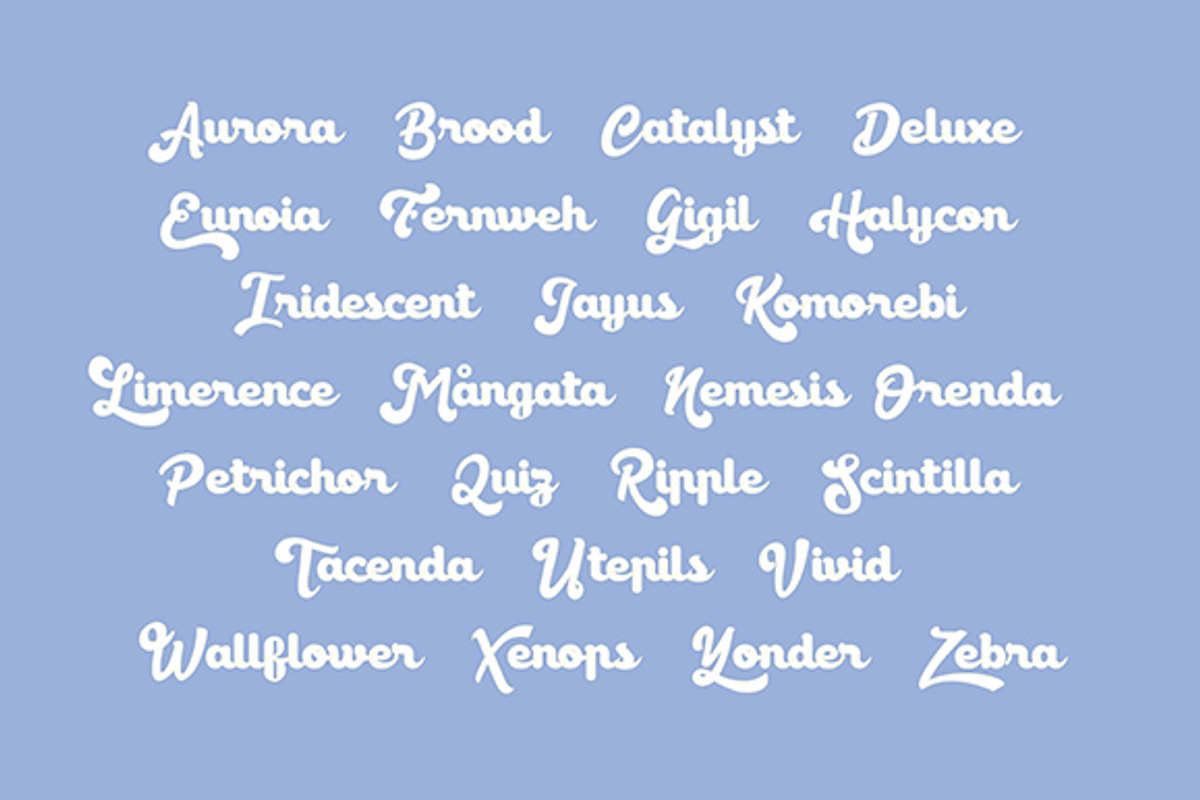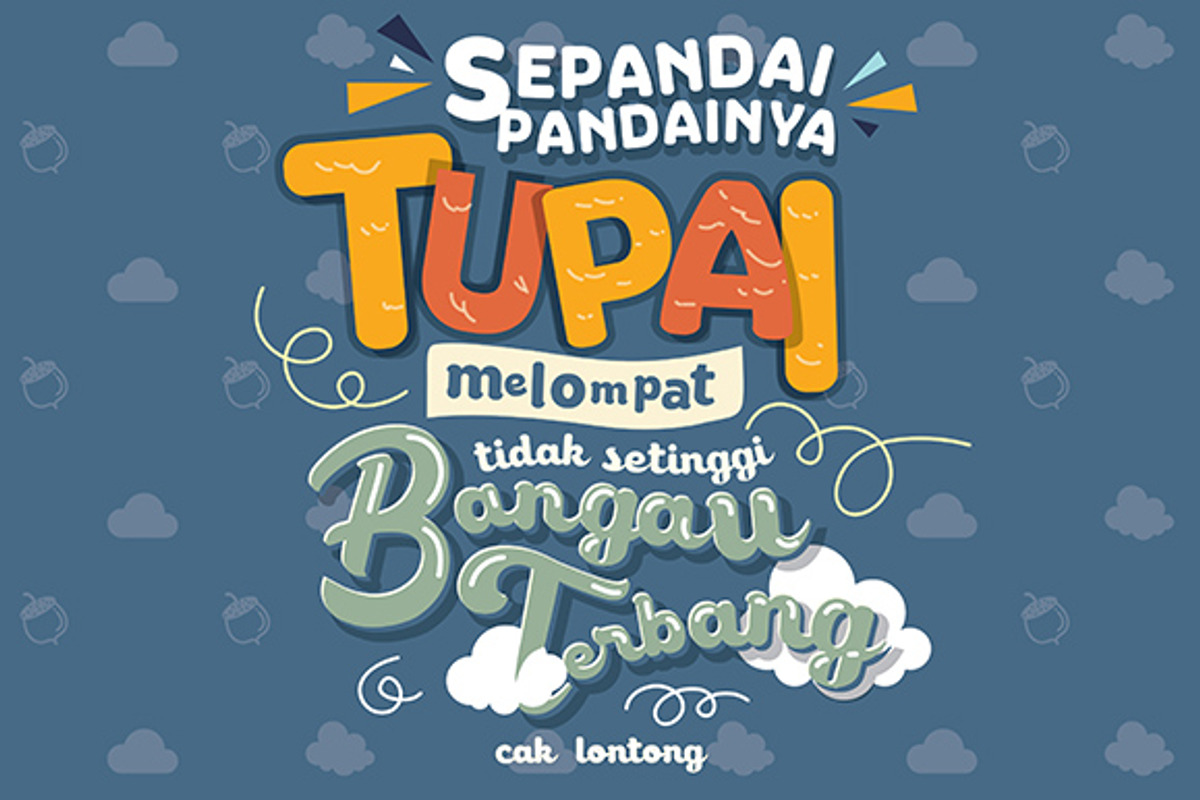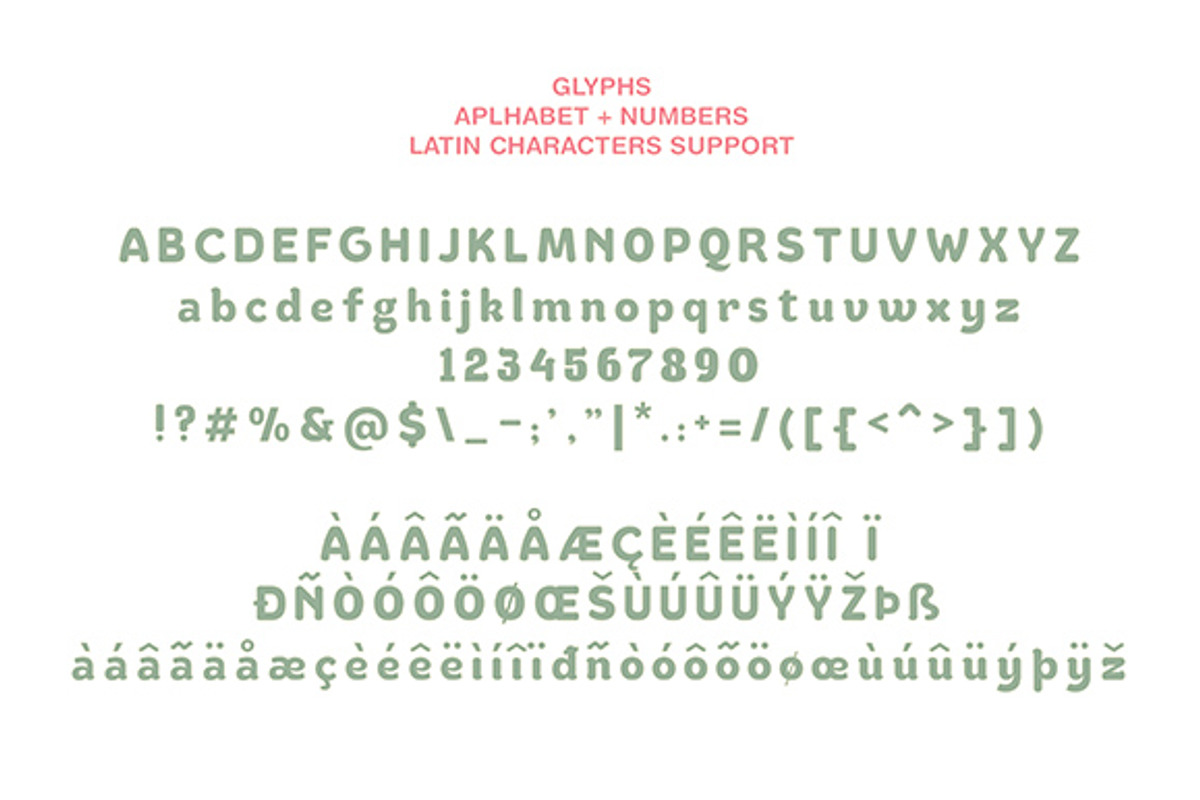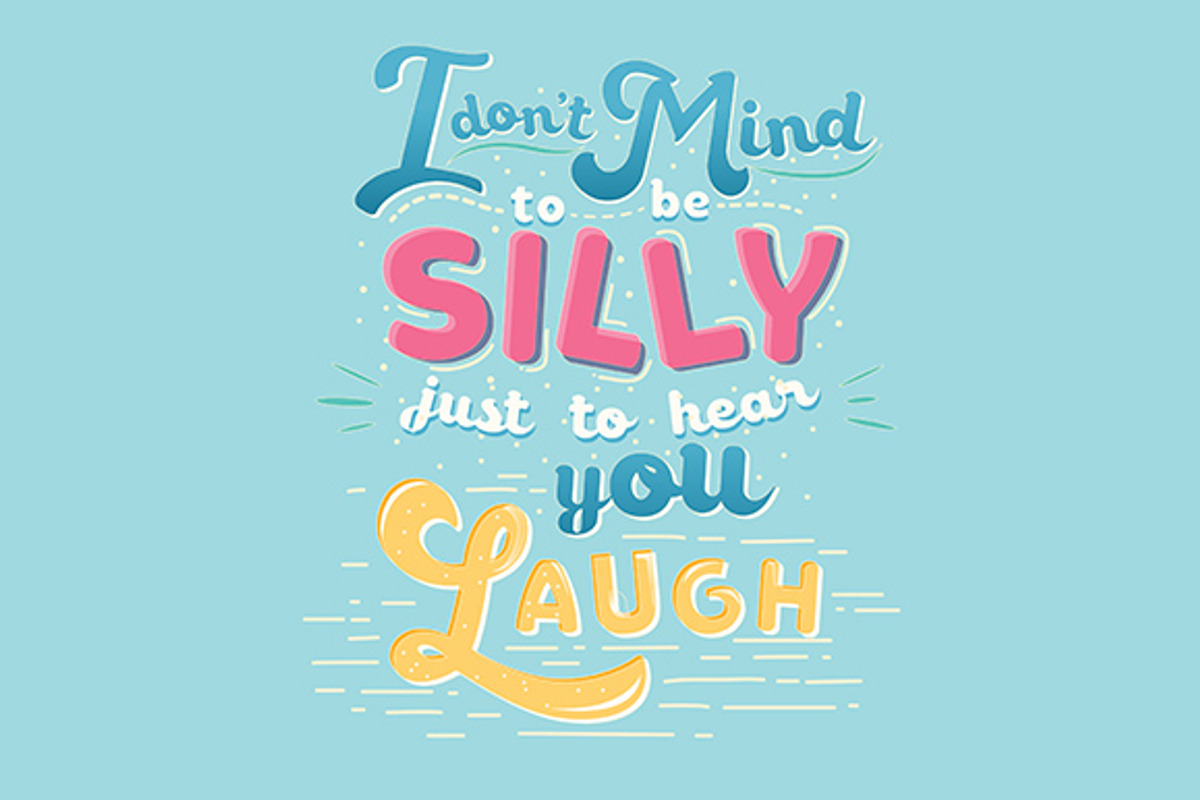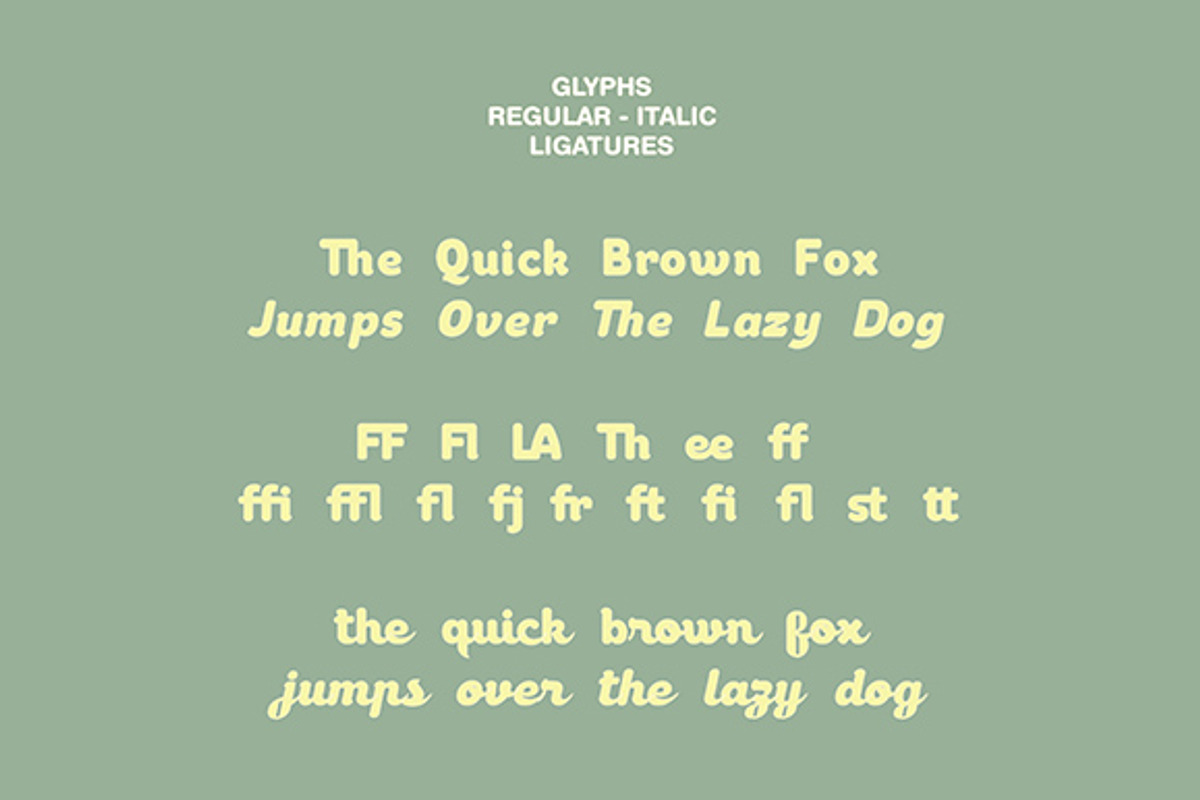
Canda Typeface (Sans & Script)
Canda Typeface (Sans & Script) by Adhreza is a font selected for branding, posters, packaging, typography.
Why Canda Typeface (Sans & Script) is worth a look
Canda Typeface (Sans & Script) by Adhreza fits naturally into Branding, posters, packaging, typography.